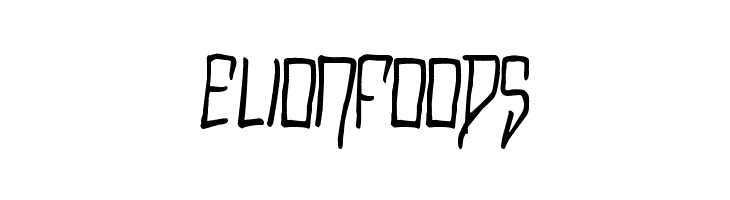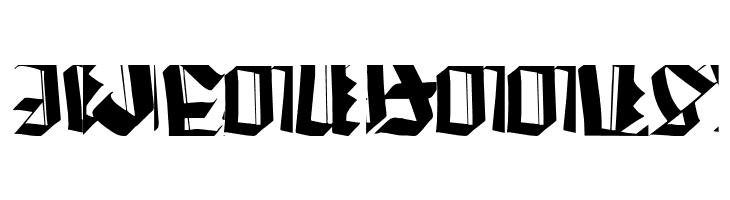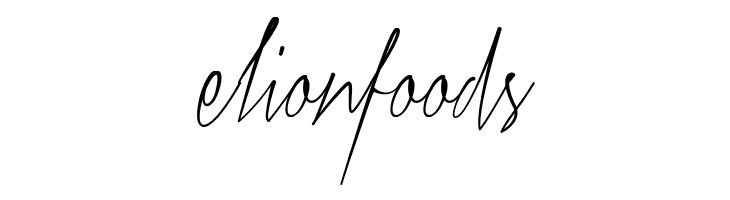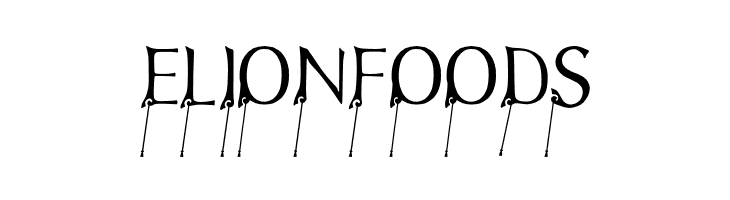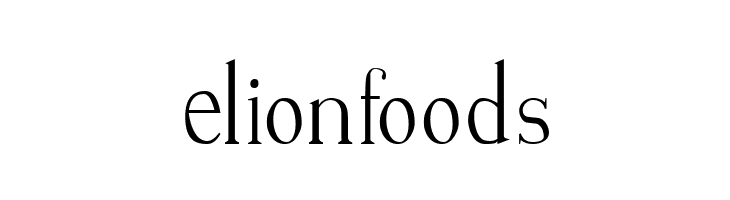
A tall, narrow font with elongated characters and a modern, artistic style.
A hand-drawn, artistic font with elongated, irregular letterforms.
A bold, fragmented font with sharp angles and dynamic negative spaces.
A dynamic, handwritten-style font with elongated, slanted characters and thin strokes.
A decorative font with elegant, elongated serifs and intricate details.
A bold, high-contrast serif font with elongated, narrow characters and sharp serifs.
An artistic font with elongated, curved strokes and a distinct, exotic appearance.
A classic serif font with elegant, elongated strokes and a refined appearance.